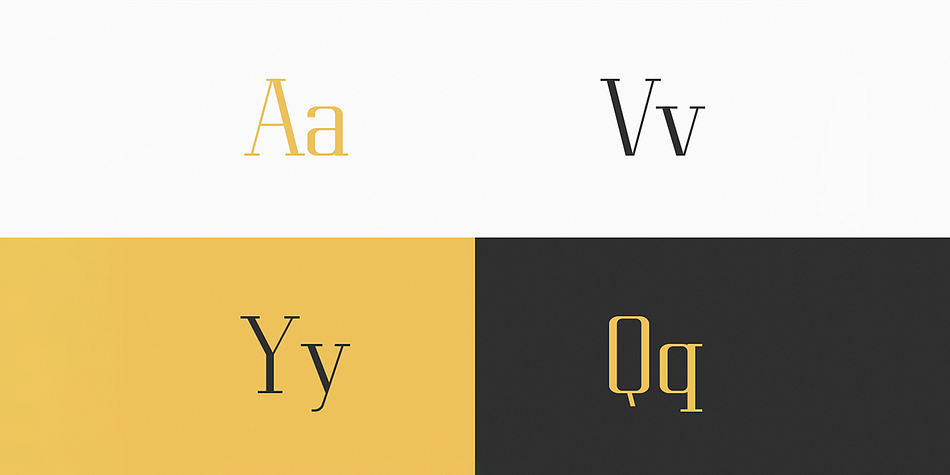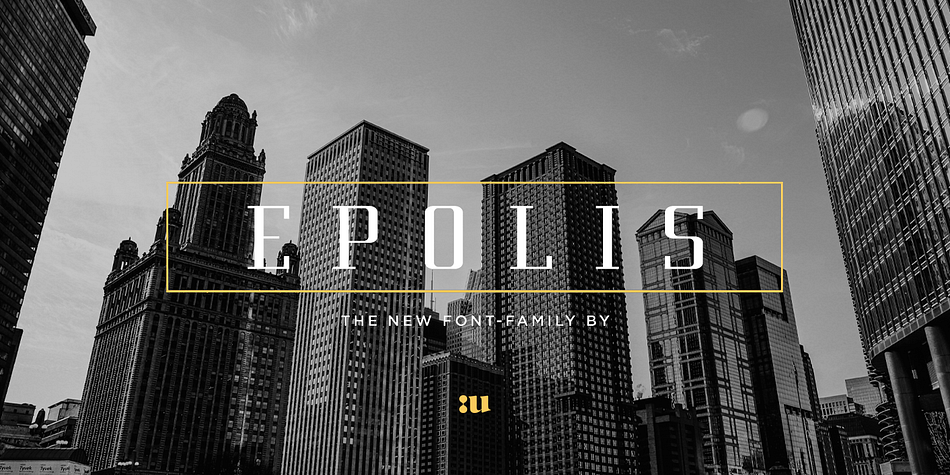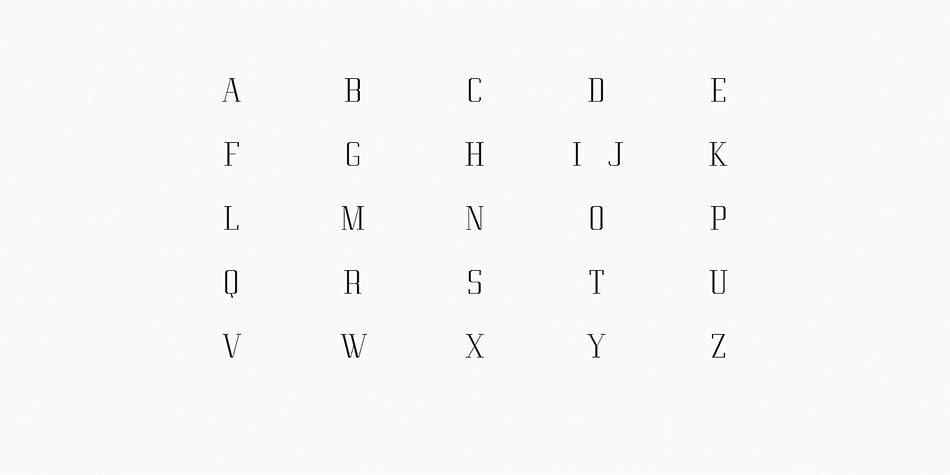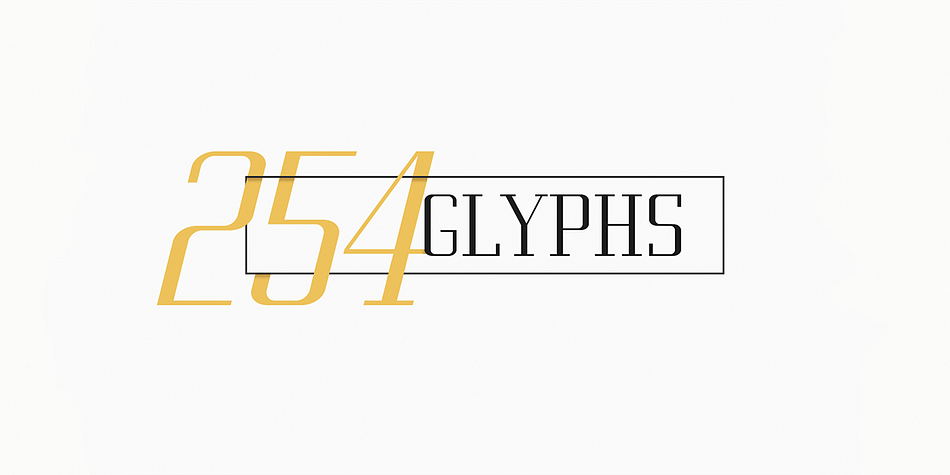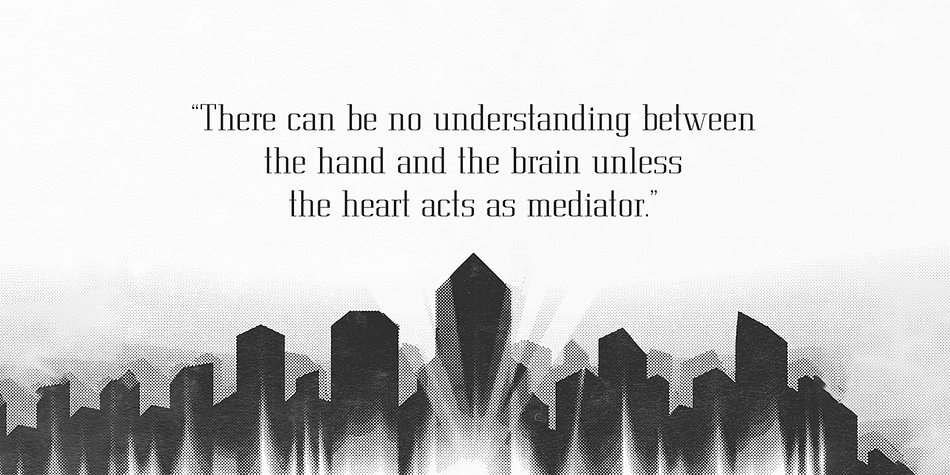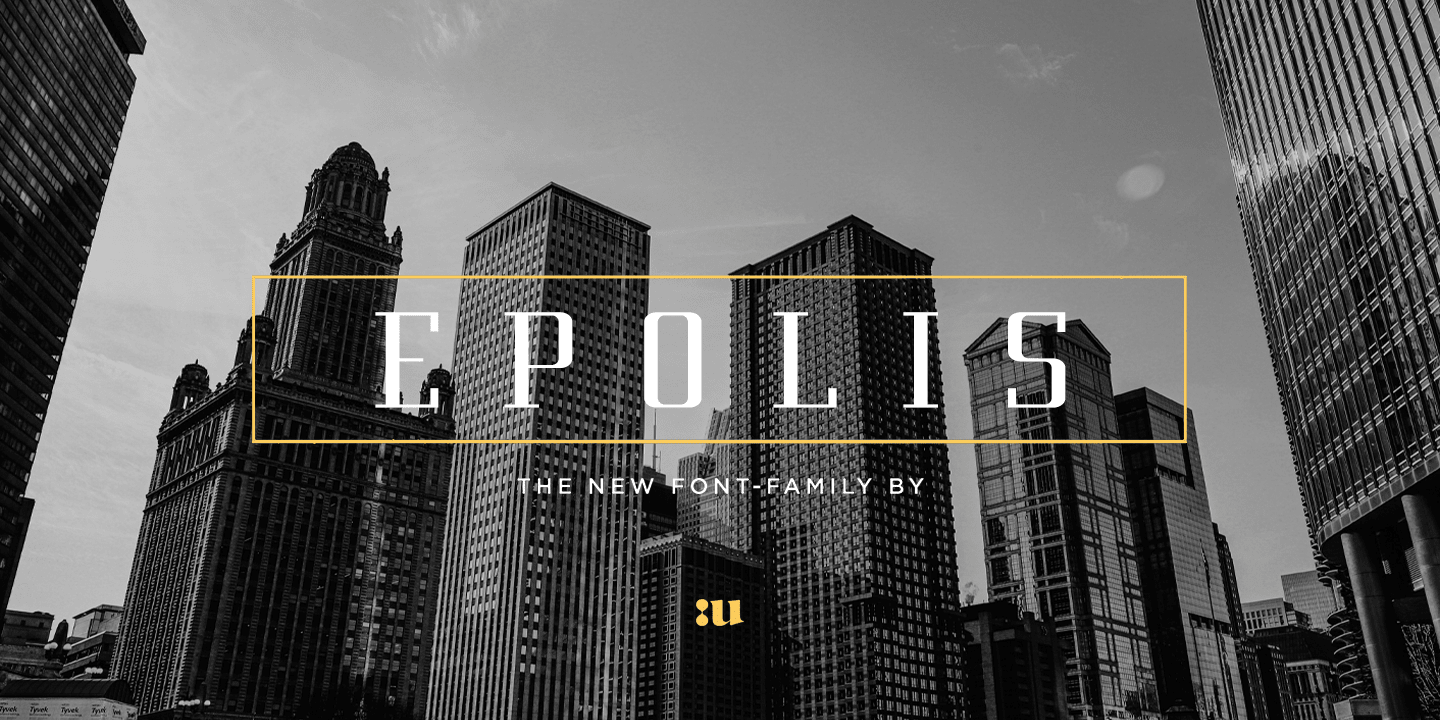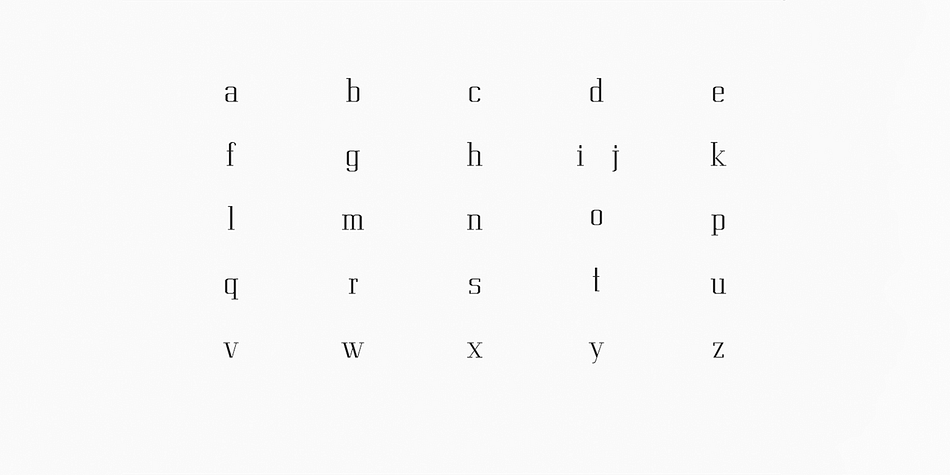
Epolis
Epolis is a slab serif font family. This typeface has eight styles and was published by Unio Creative Solutions.
Inspired by the original 1927 Fritz Lang movie and based on a old classic design, Epolis font is a classic revival, a combination of modern and classic art. Created to answer contemporary needs of 21st century projects.
This elegant and versatile serif typeface captures the essence of classic and modern city, the dualism between the working class and the city planners. Through the elegant lines and sinuous curves this font works perfectly for a display reading or beautifully as a headline or as body copy.
Epolis includes 254 glyphs and comprises thin, light, regular and bold weights with corresponding true italics.